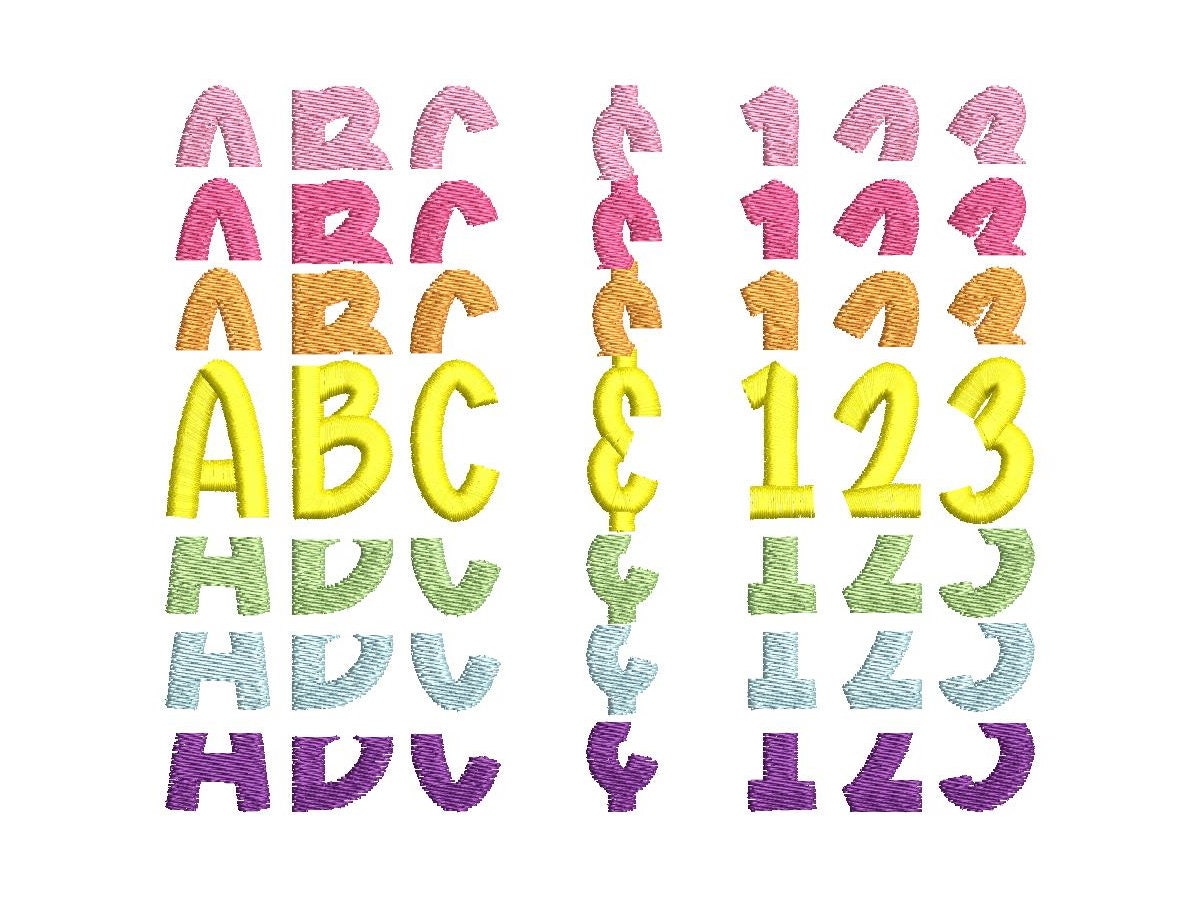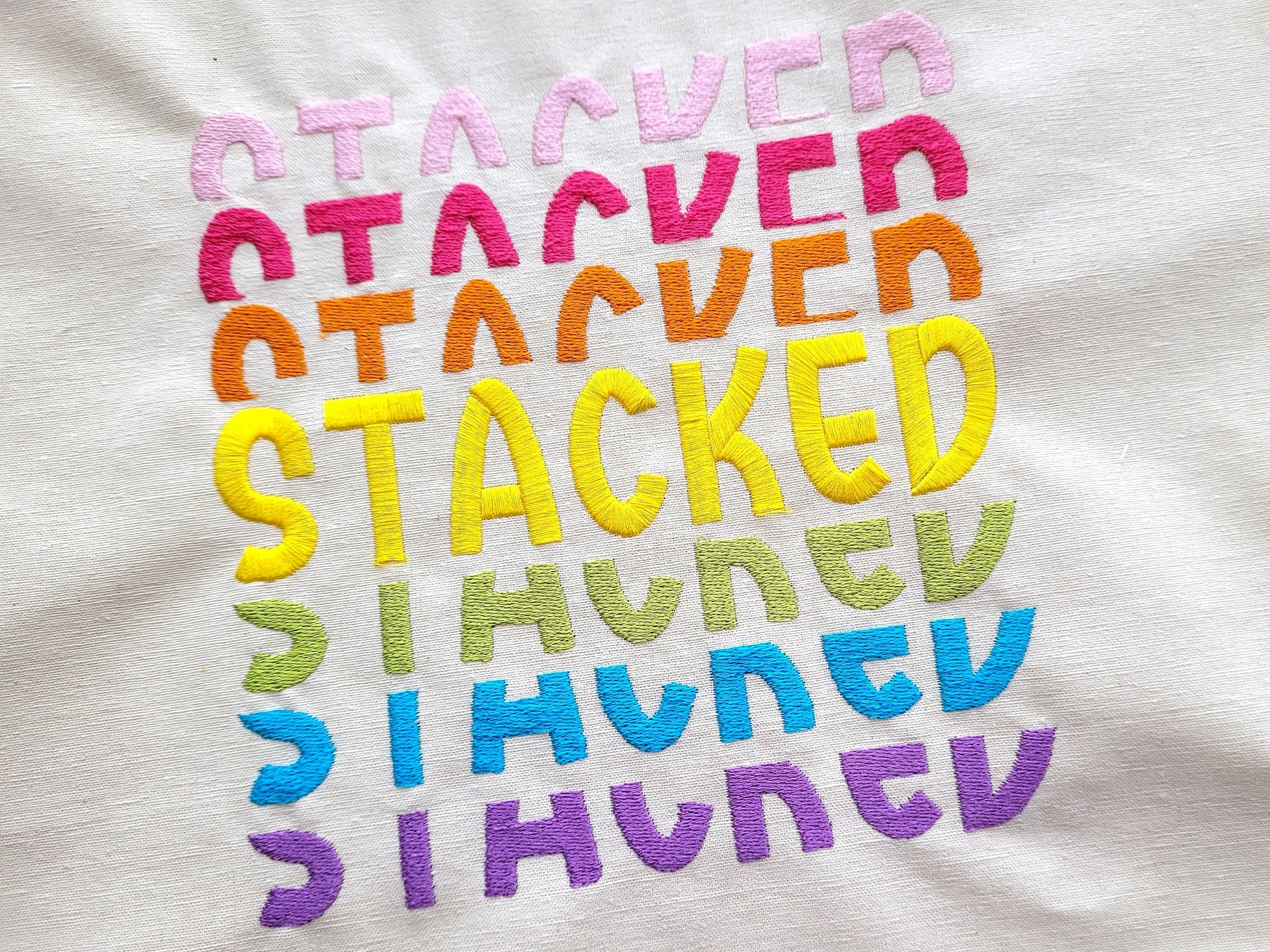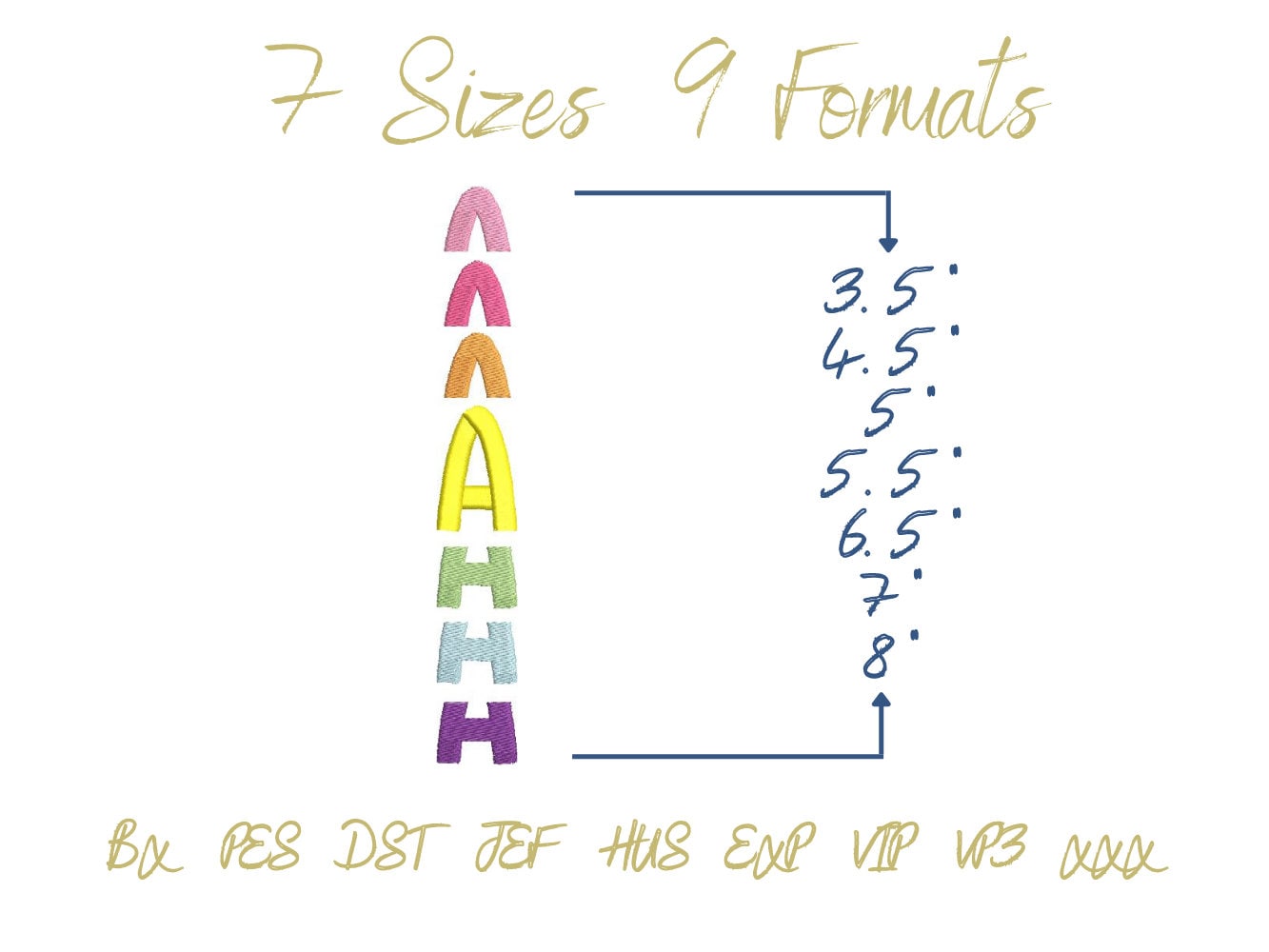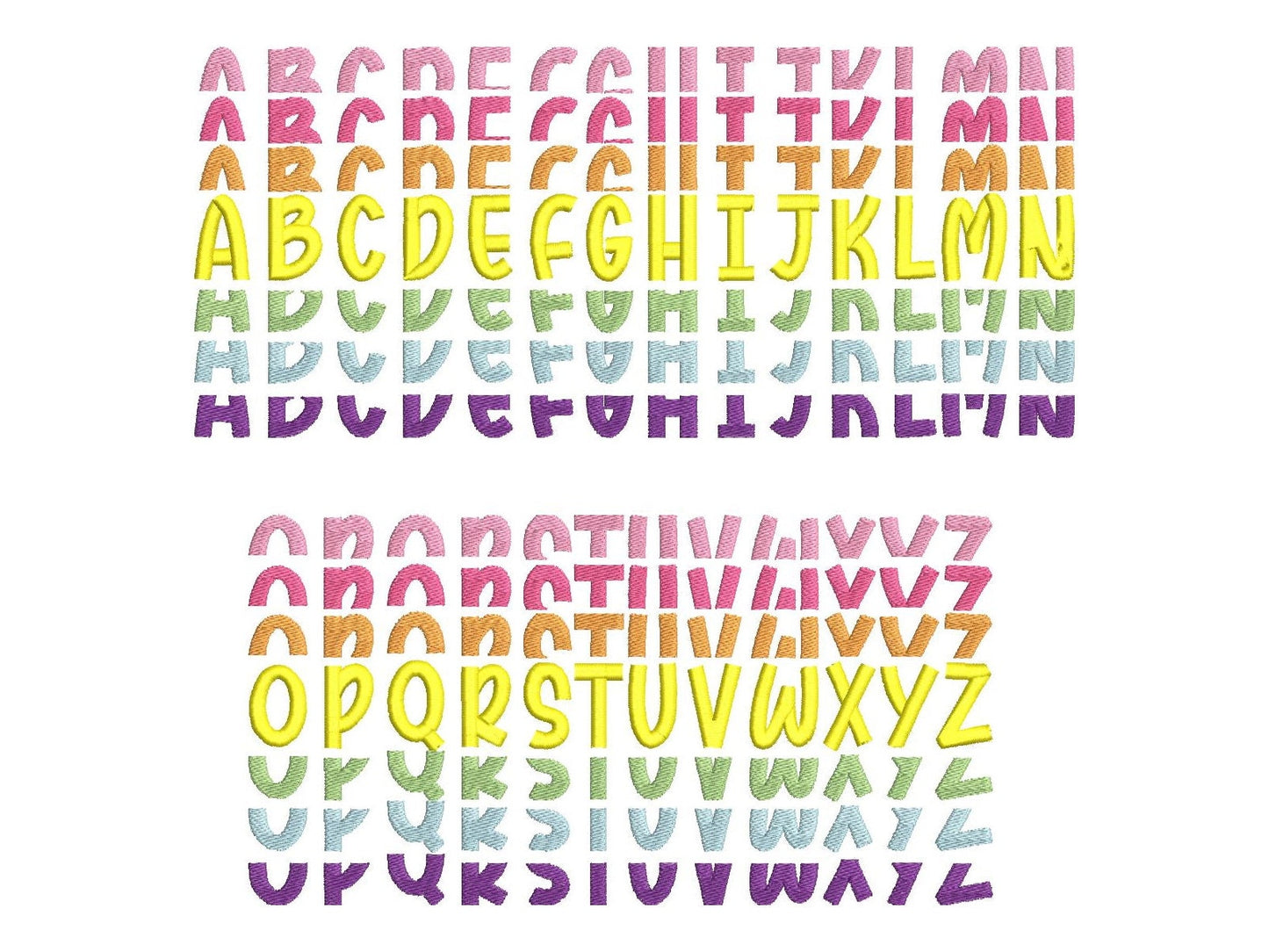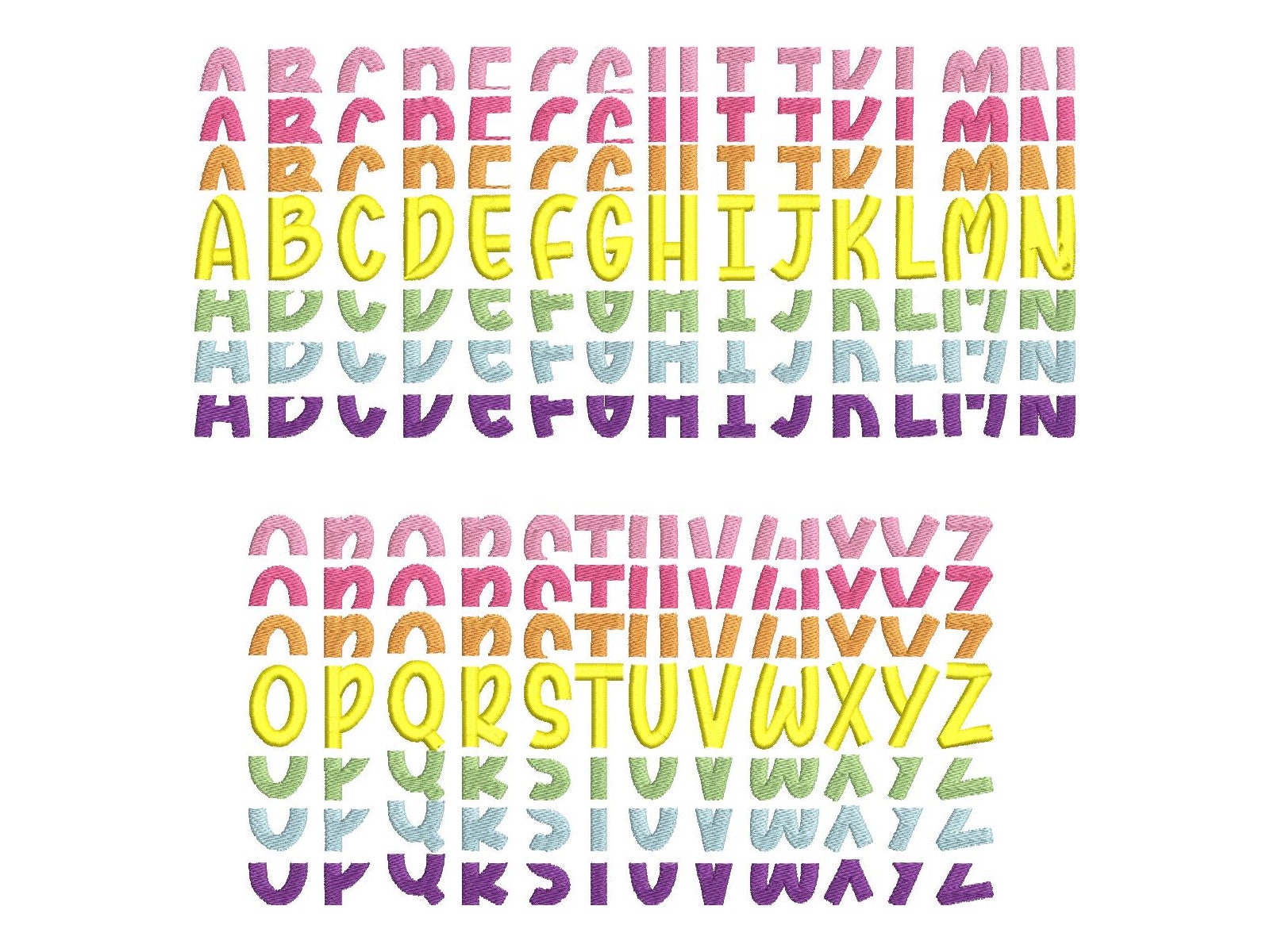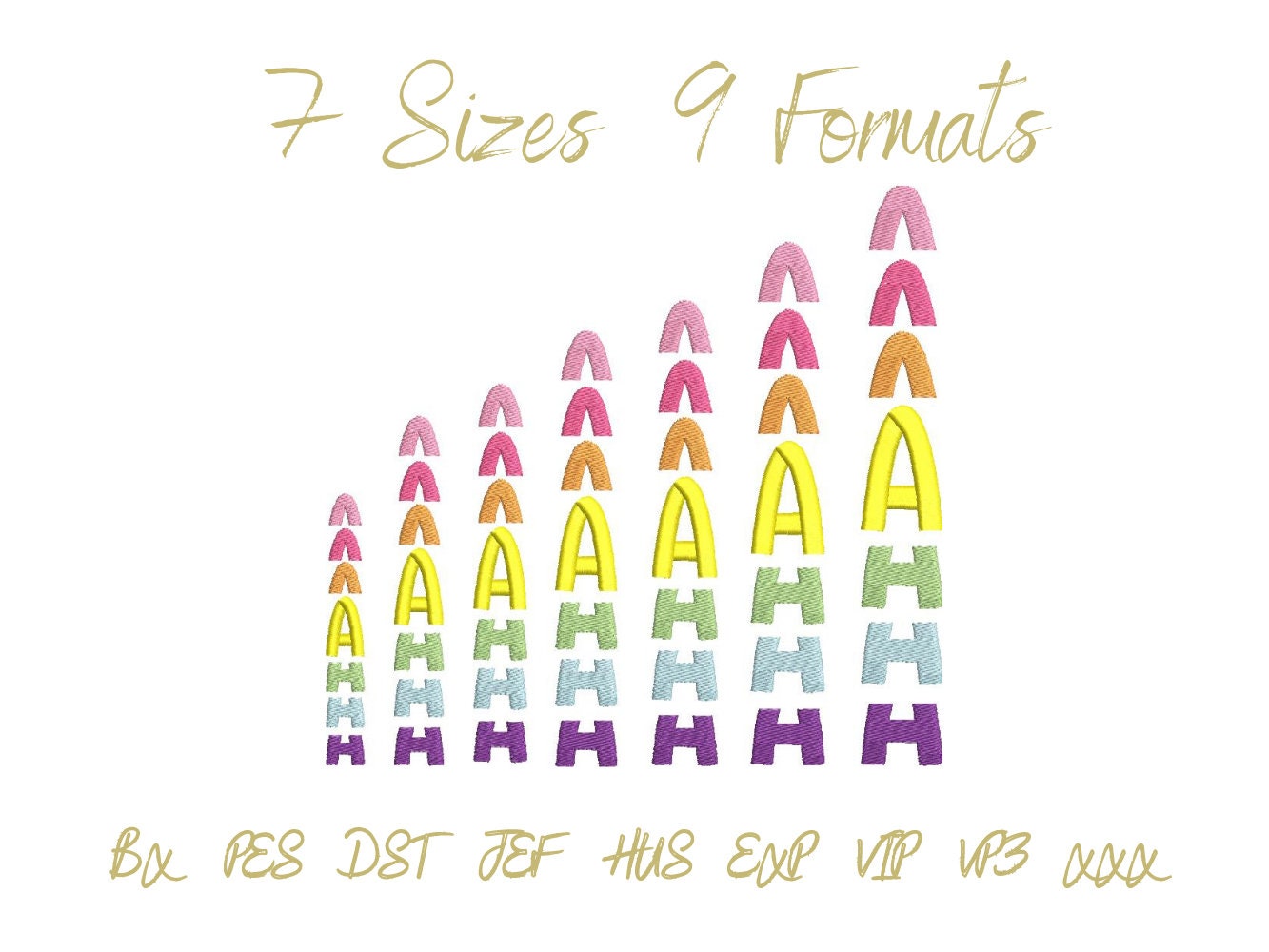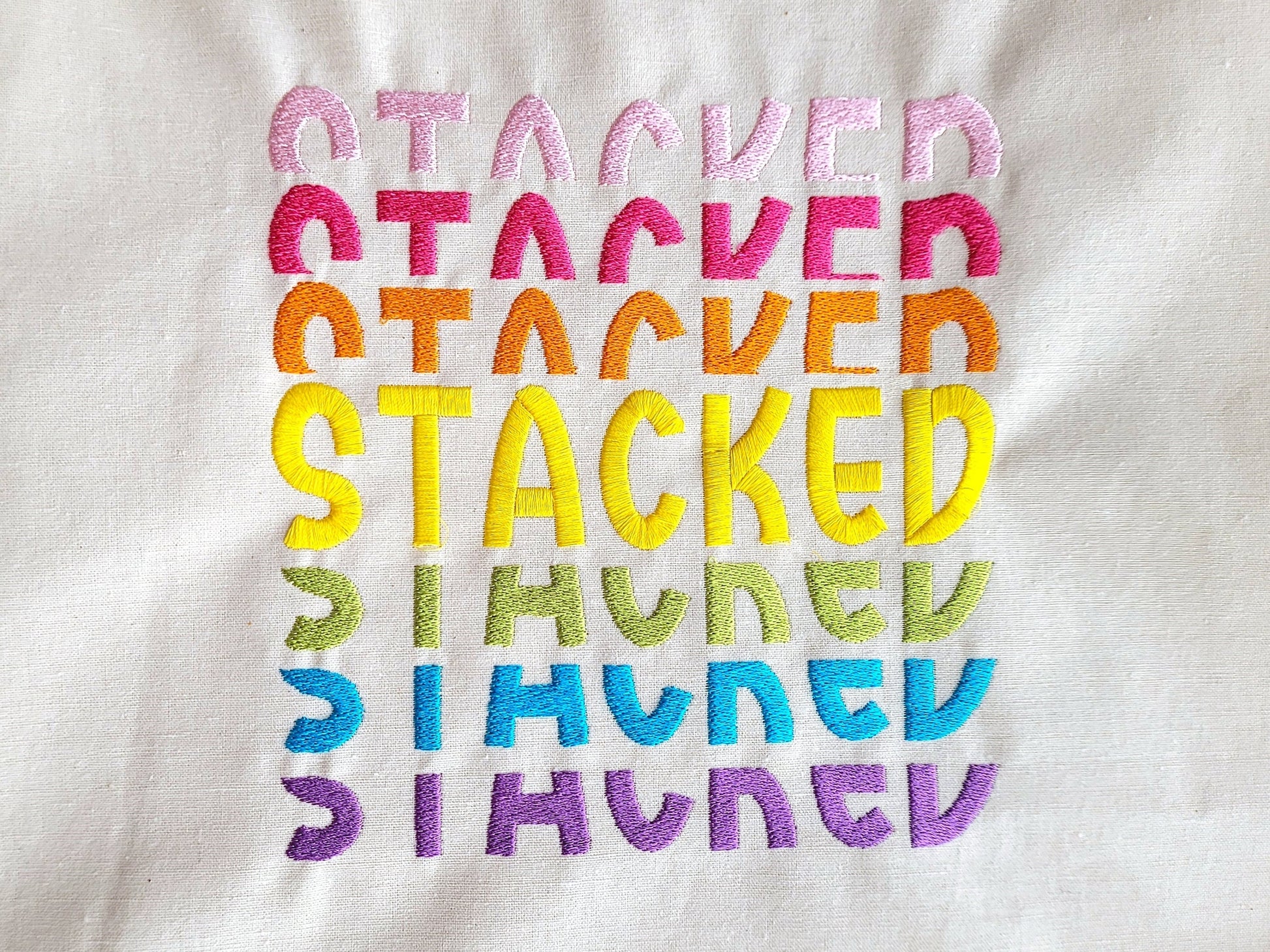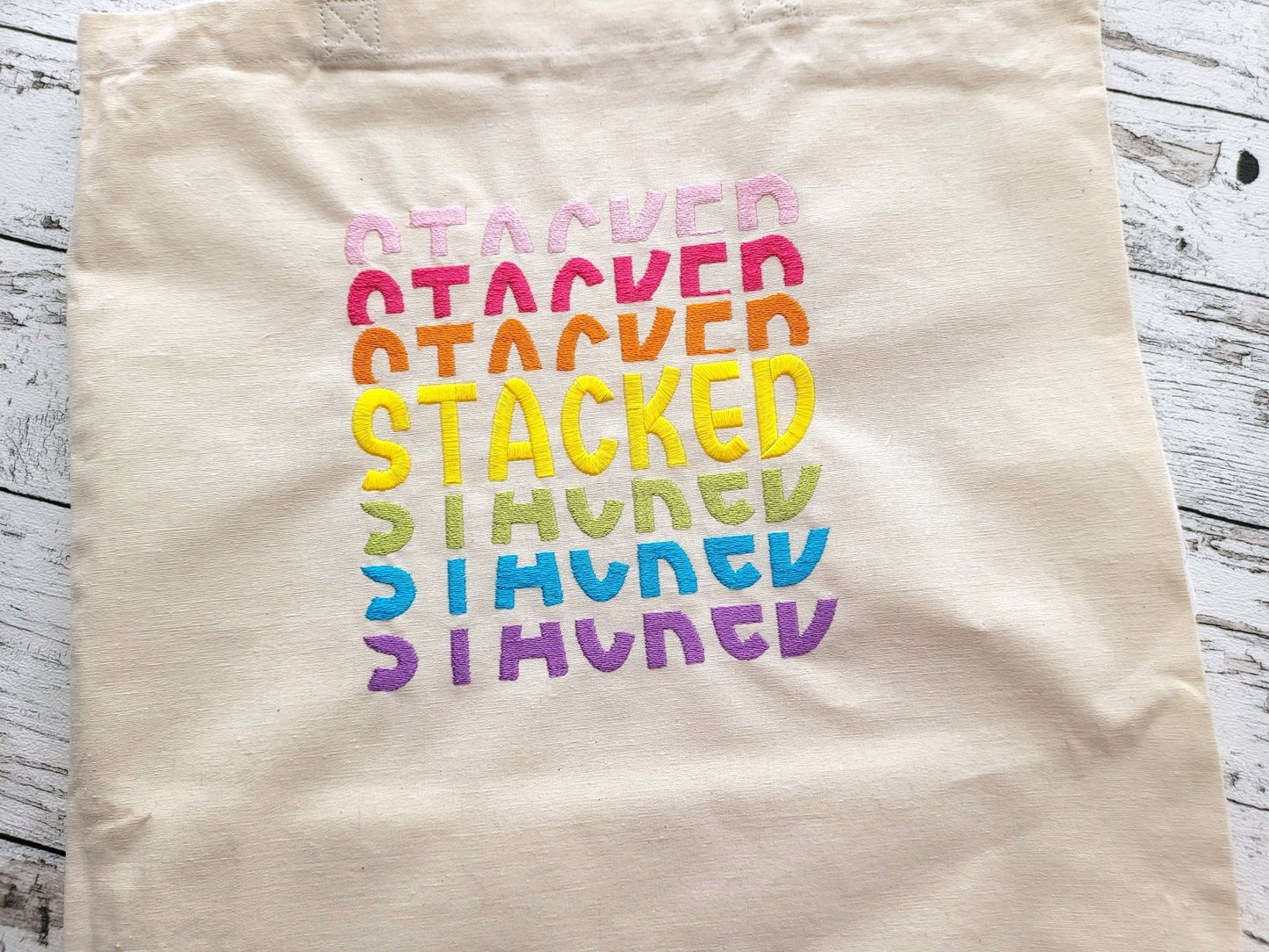
Awesome Stacked Font
Or click to open the linkA big, bold stacked font in satin and fill stitch. Trendy for kids' names on sweatshirts, T-shirts and tote bags.
Uppercase letters A to Z, numbers 0 to 9 and an ampersand, in seven sizes: 3.5, 4.5, 5, 5.5, 6.5, 7 and 8 inches.
- Stacked satin and fill stitch font
- Uppercase A-Z, numbers 0-9, ampersand
- 7 sizes, 3.5 to 8 in